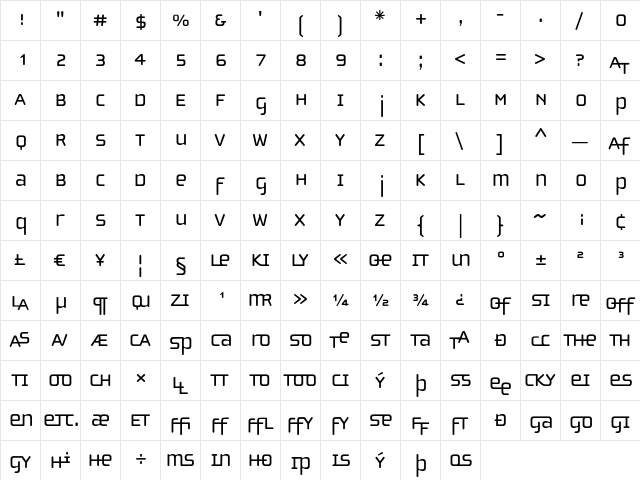
ChollaUnicaseLigatures Roman
Design Context for ChollaUnicaseLigatures Typeface
ChollaUnicaseLigatures is a composed and adaptable typeface that performs quietly and consistently across a wide range of design contexts.